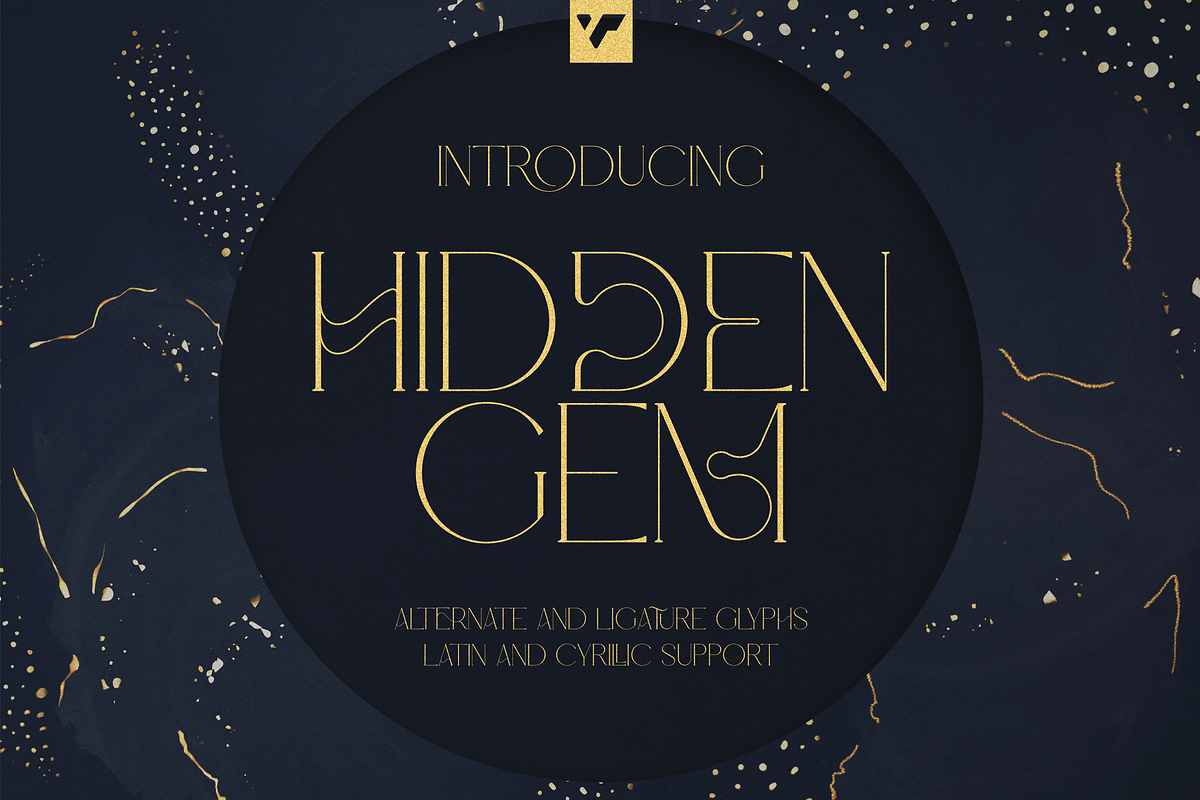
The Hidden Gem Serif + Cyrillic and More Free Download is a sophisticated and versatile font that blends classic serif elements with modern flair. Featuring both Cyrillic characters and a range of additional styles, this font is perfect for creating elegant logos, branding, editorial layouts, invitations, and more. Whether you're designing for a luxury brand, a creative project, or a professional event, Hidden Gem brings a polished and global touch to your work.
Hidden Gem Serif + Cyrillic and More Free Download is ideal for designers looking to incorporate a sophisticated, international font into their work. Perfect for high-end branding, global marketing materials, or multi-language projects, this font will add refinement and style to your creative projects. Download it today and elevate your designs with the timeless appeal of Hidden Gem!